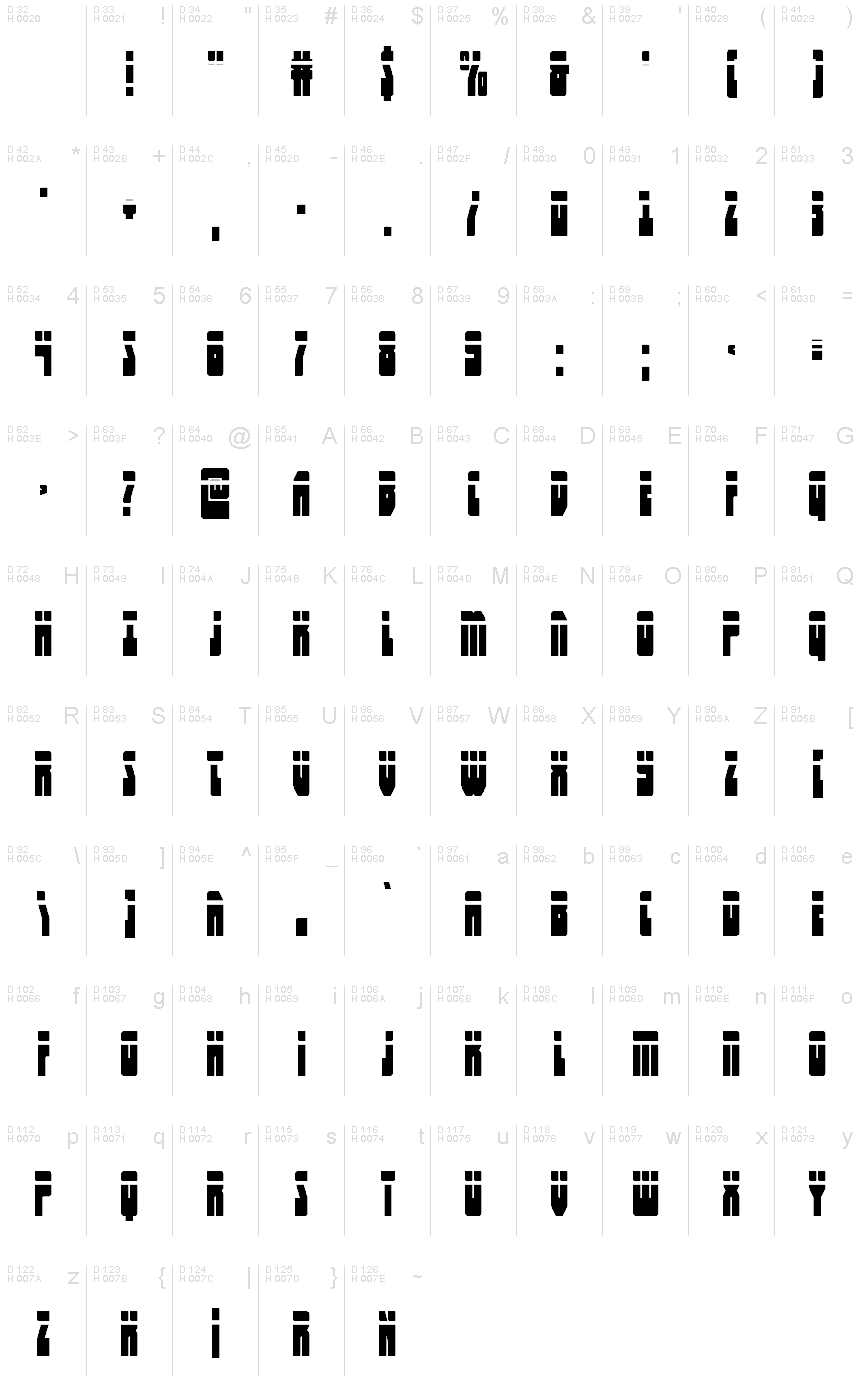
Elastic Lad Laser
Elastic Lad Laser font by Iconian Fonts is a display font which combines structured and geometric elements for a distinctive futuristic appearance. It is condensed and modular in style, a visual feature that captures efficiency, energy, and modernity all at once. Elastic Lad grabs your attention with each letter it presents in its grooved lines.
This free groovy font can be used for web design projects while developing digital businesses' website that deal with technological products or services. Elastic Lad Laser would also suit branding visuals like logos or product labels of personal items like headphones which are made to look futuristic by nature. It suits posters, magazines, book covers, advertising materials for movies/media productions because the text interacts beautifully with accompanying images/graphics on whatever surface medium you choose to use them on.